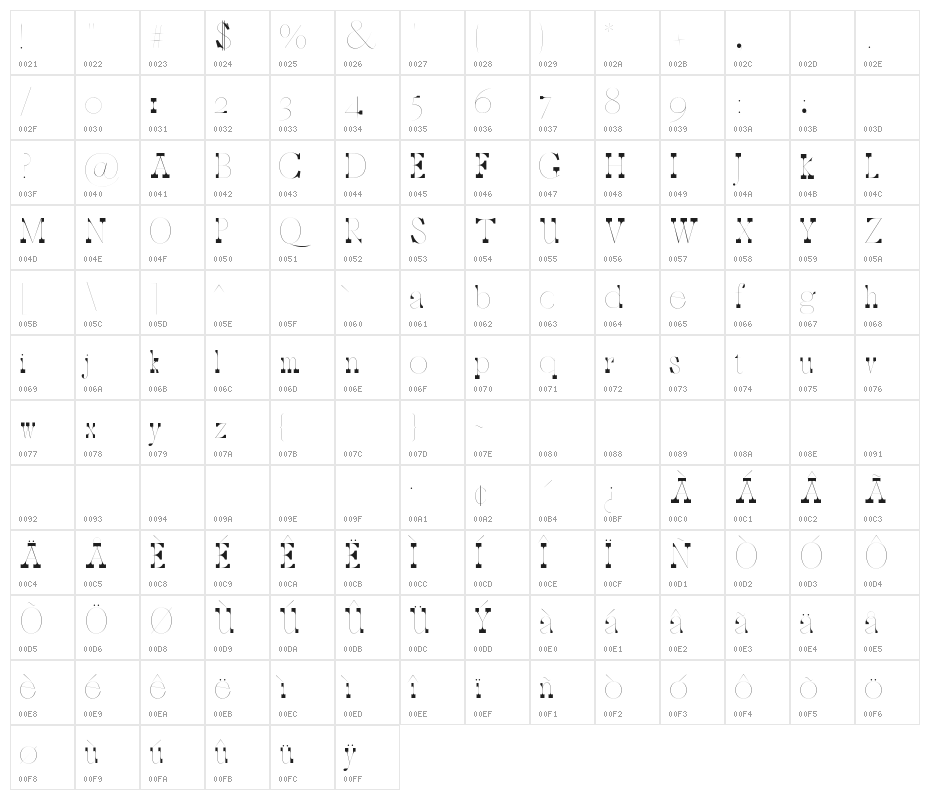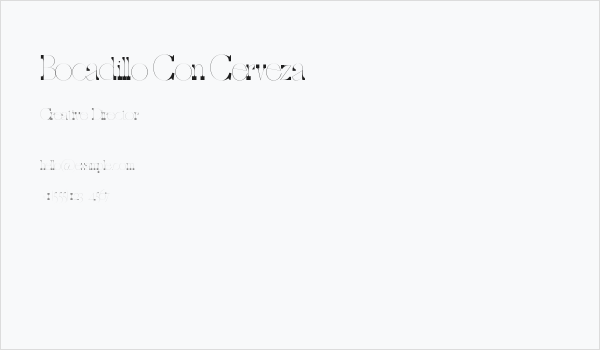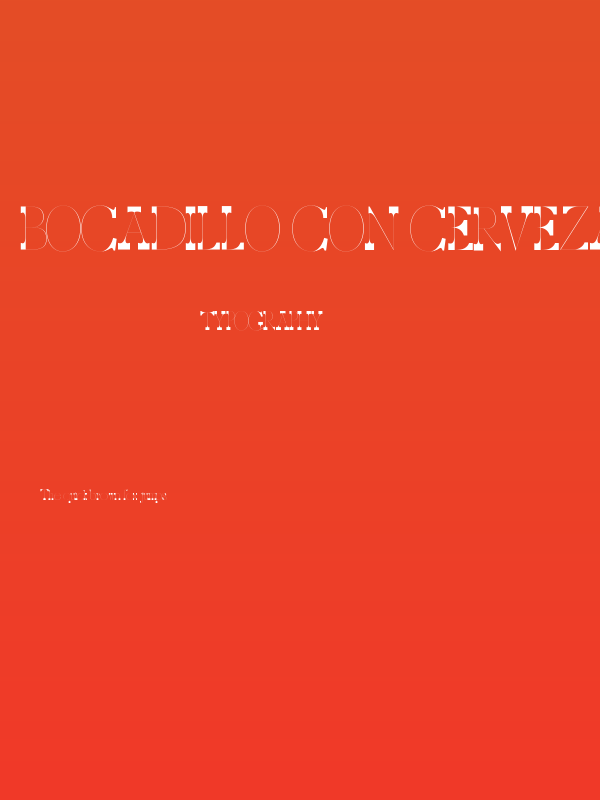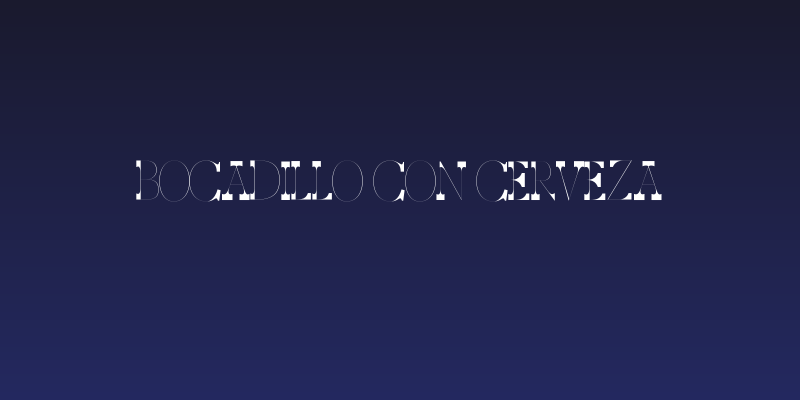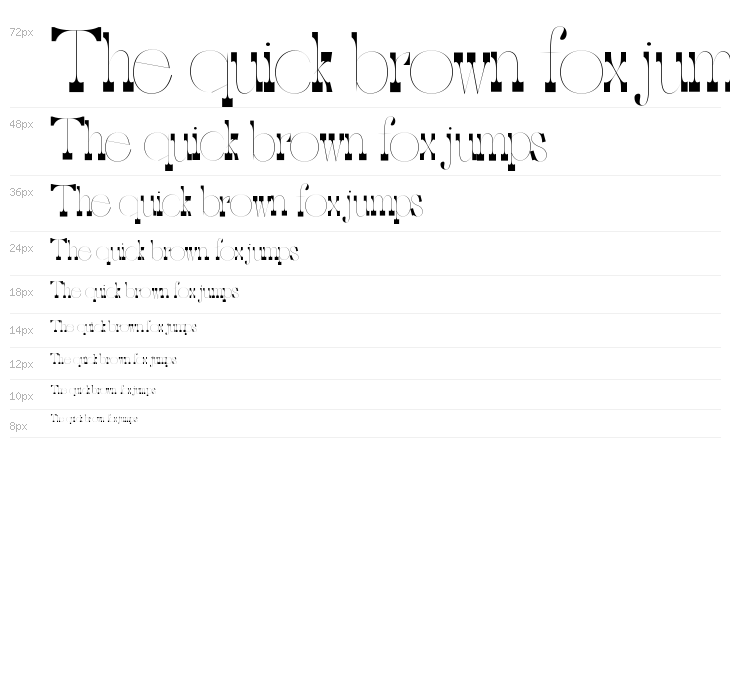
Bocadillo Con Cerveza Font
Bocadillo Con Cerveza Description
This font features a striking blend of bold and thin strokes, creating a high-contrast appearance that is both modern and eye-catching. The uppercase letters are particularly distinctive, with thick vertical lines and thin horizontal lines, giving them a dramatic and elegant look. The lowercase letters maintain this contrast, providing a cohesive style throughout the alphabet. The numerals and special characters follow the same design principles, ensuring consistency across all elements. This font's unique style makes it suitable for projects that require a bold statement, such as branding, advertising, and editorial design.
| Proposed Projects | Ideal for branding, advertising, editorial design, and any project needing a bold, modern statement. |